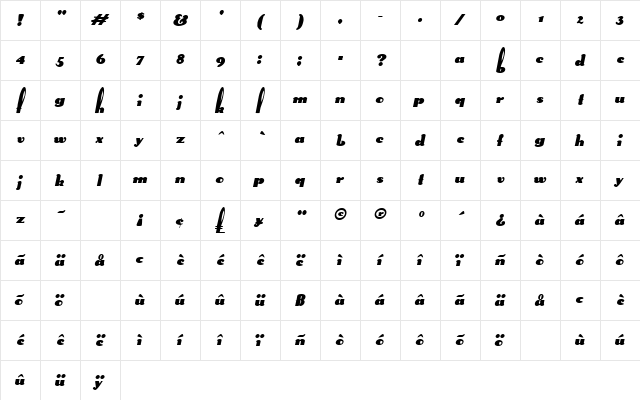
SplittingHares Oblique
Design Context for SplittingHares Typeface
SplittingHares takes a measured approach to typography — its balanced proportions and neutral character make it a reliable workhorse for both digital and print work. Its italic angle brings a sense of urgency and motion to the letterforms.
Pro Tip: Use SplittingHares for emphasis, pull quotes, and subheadings where its slanted energy can add rhythm to the layout.